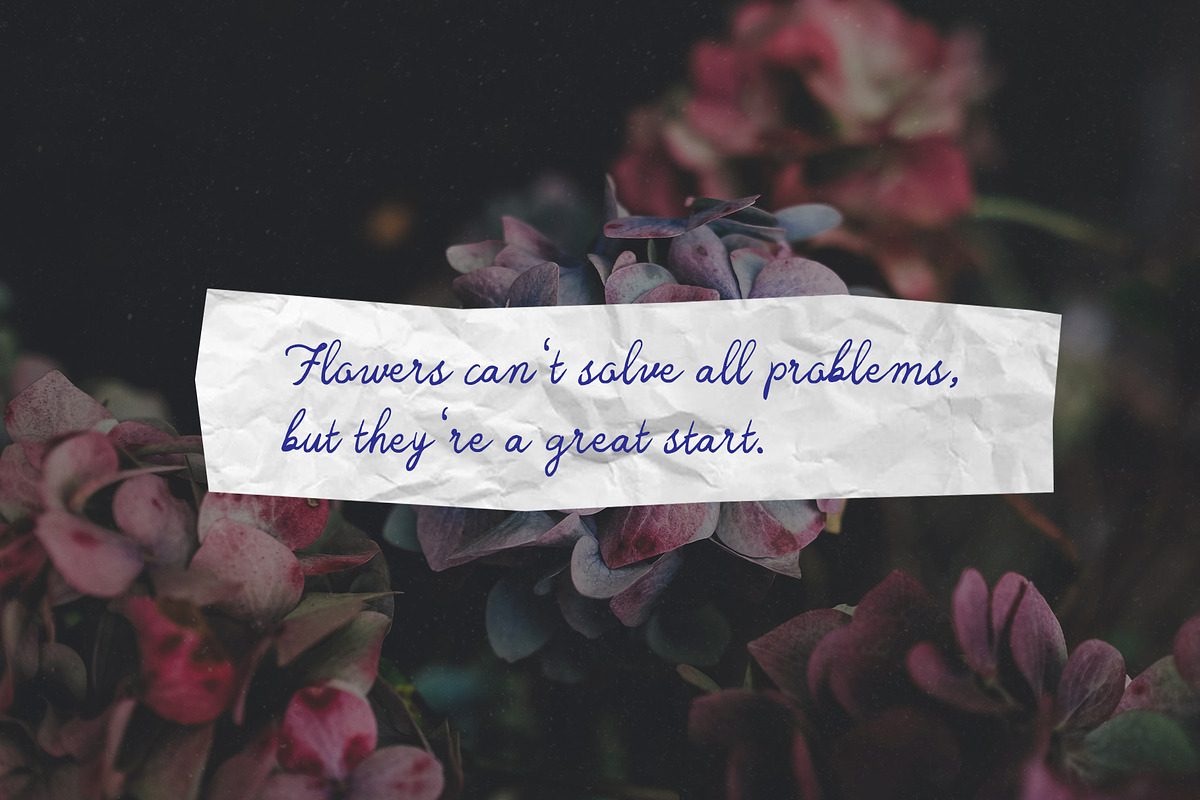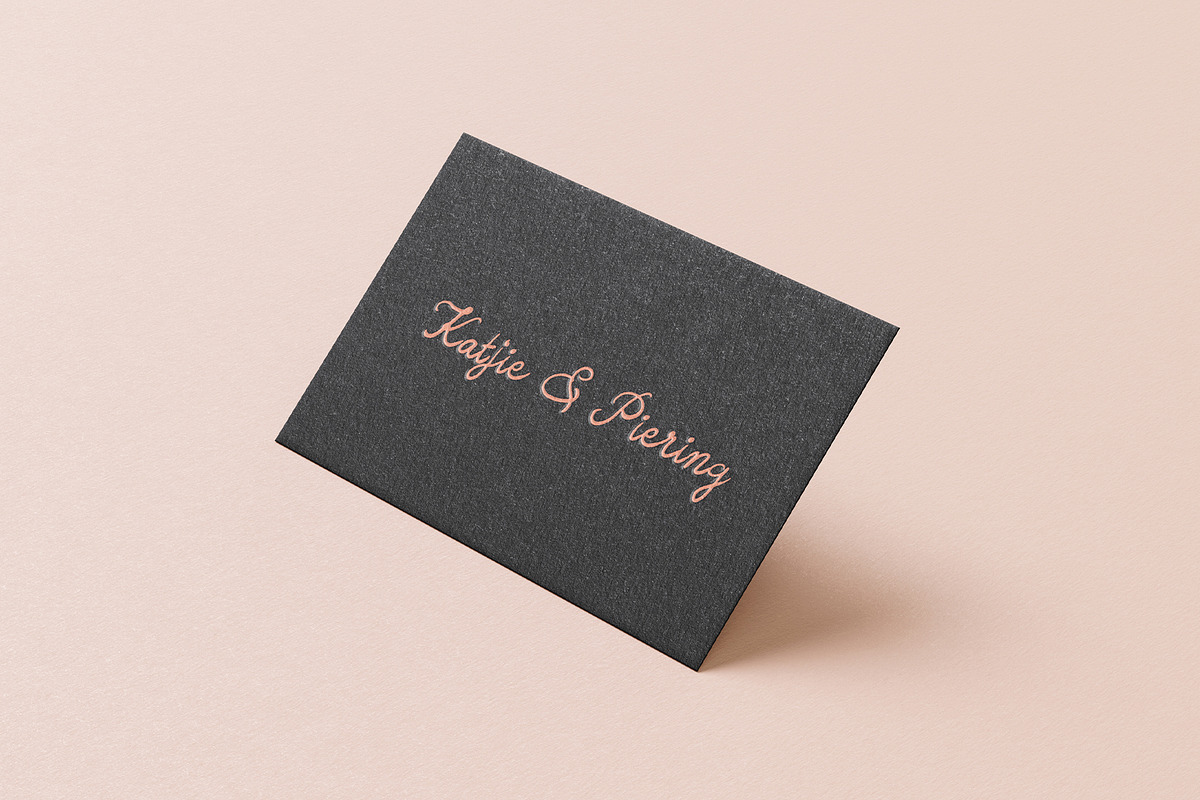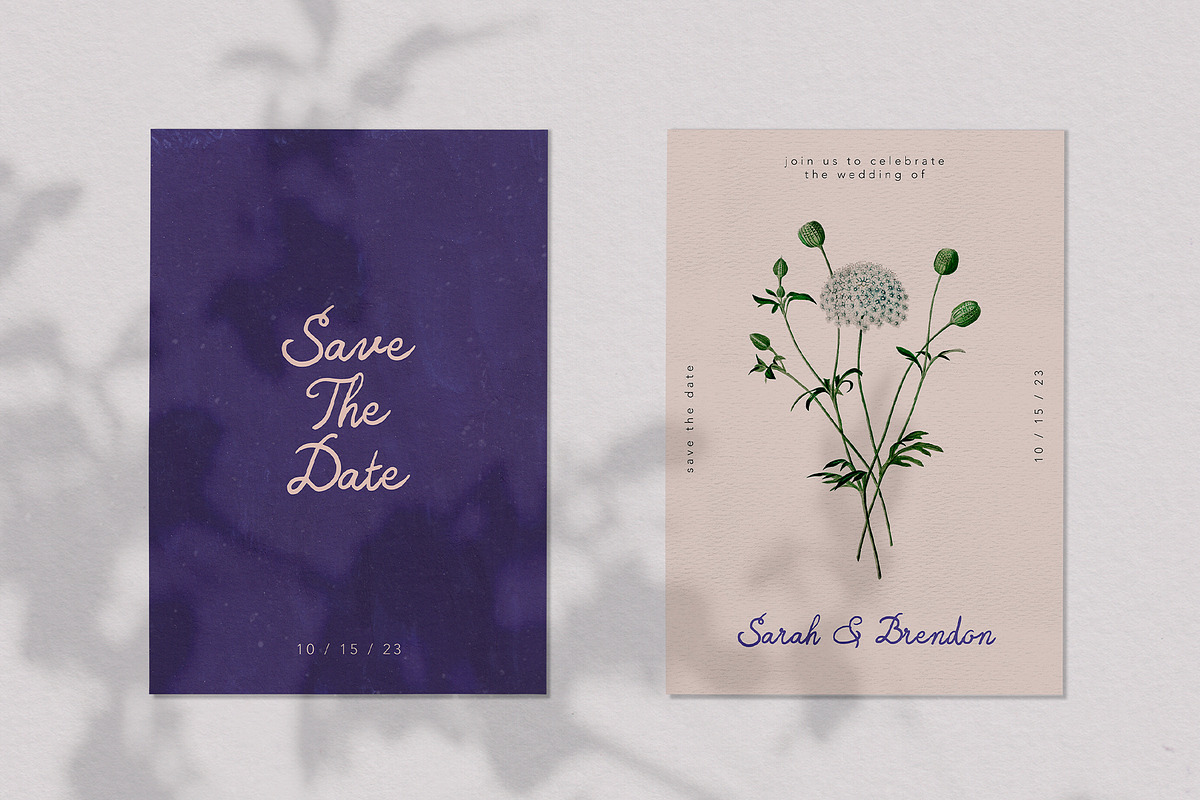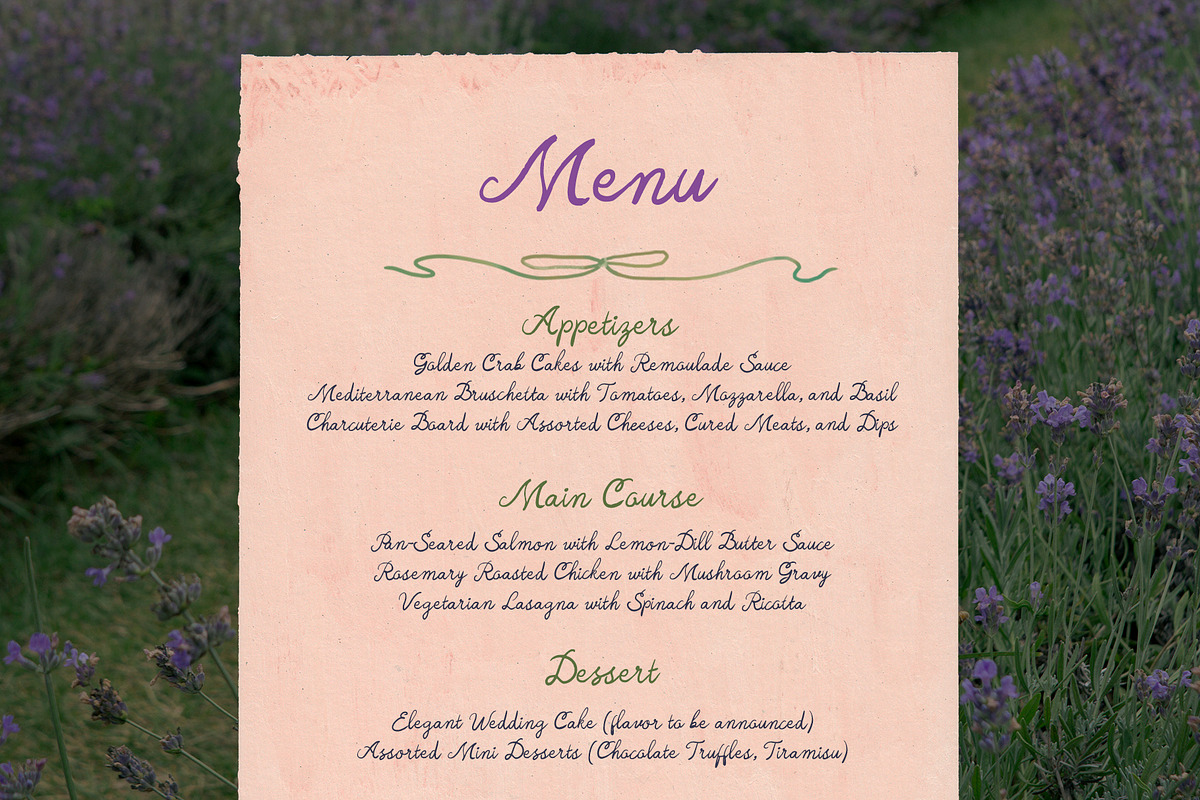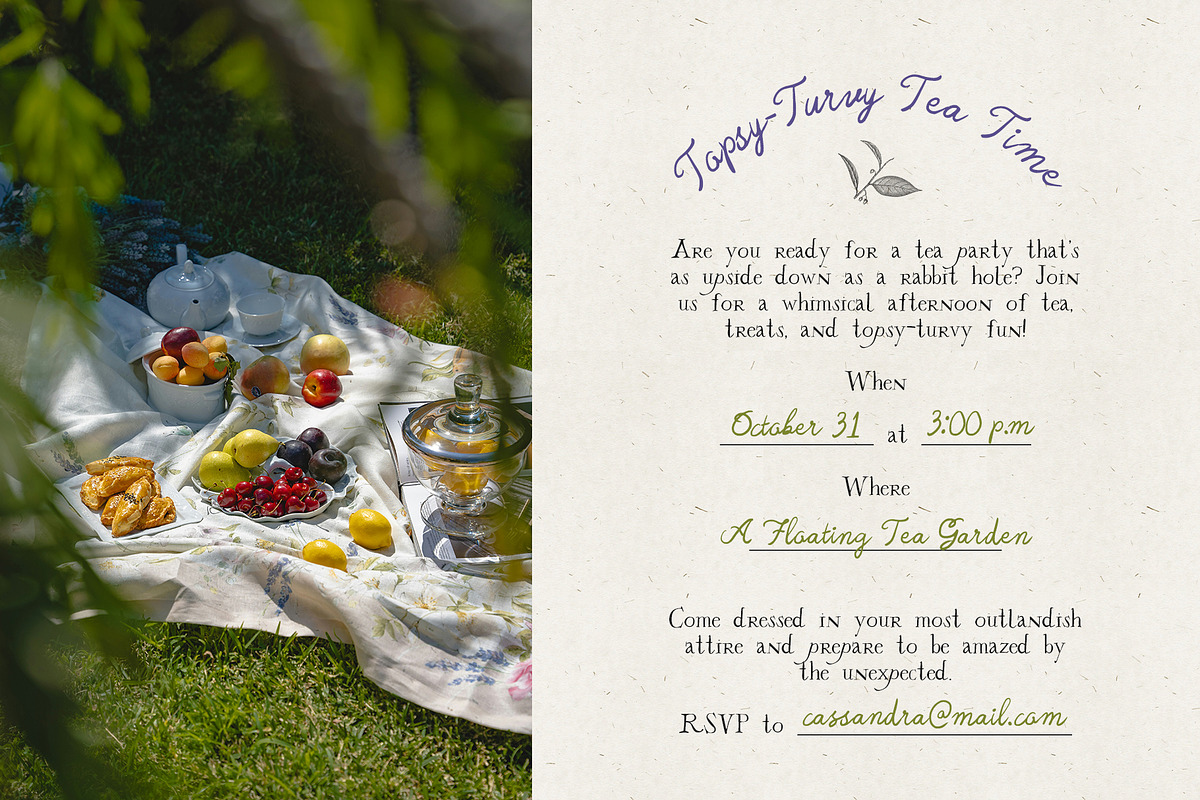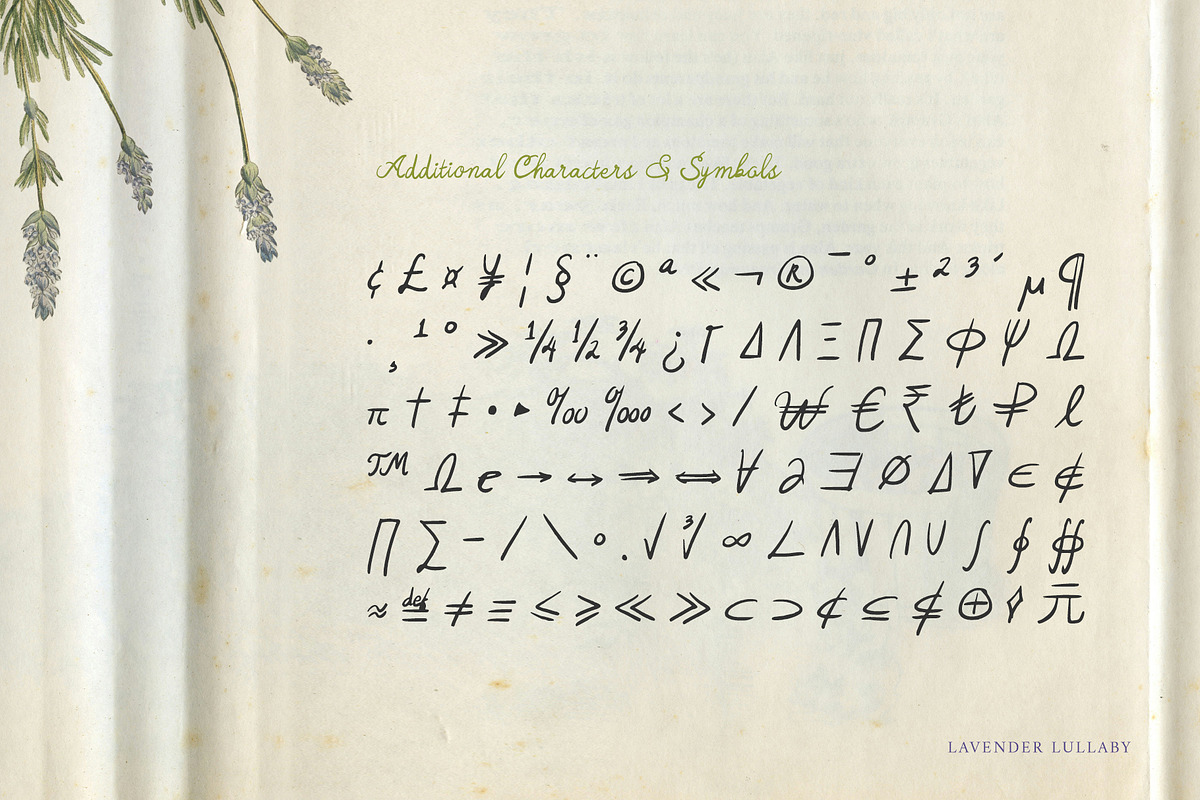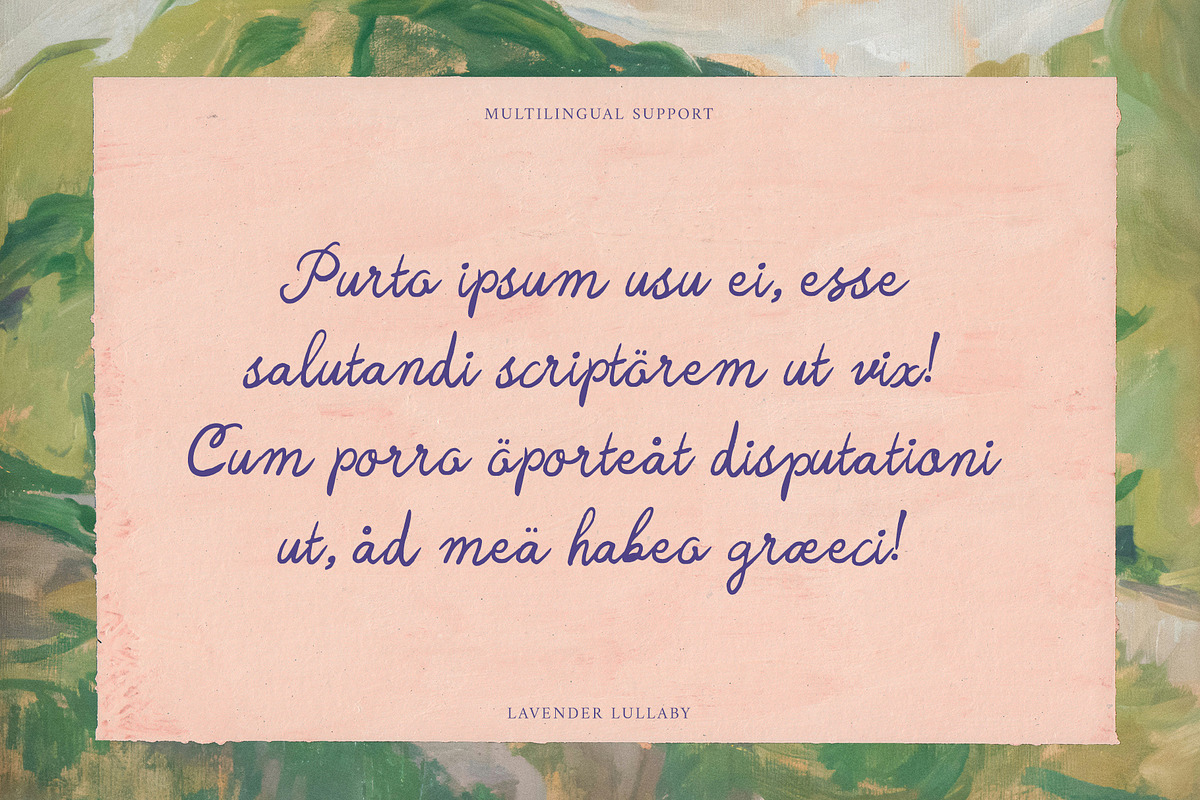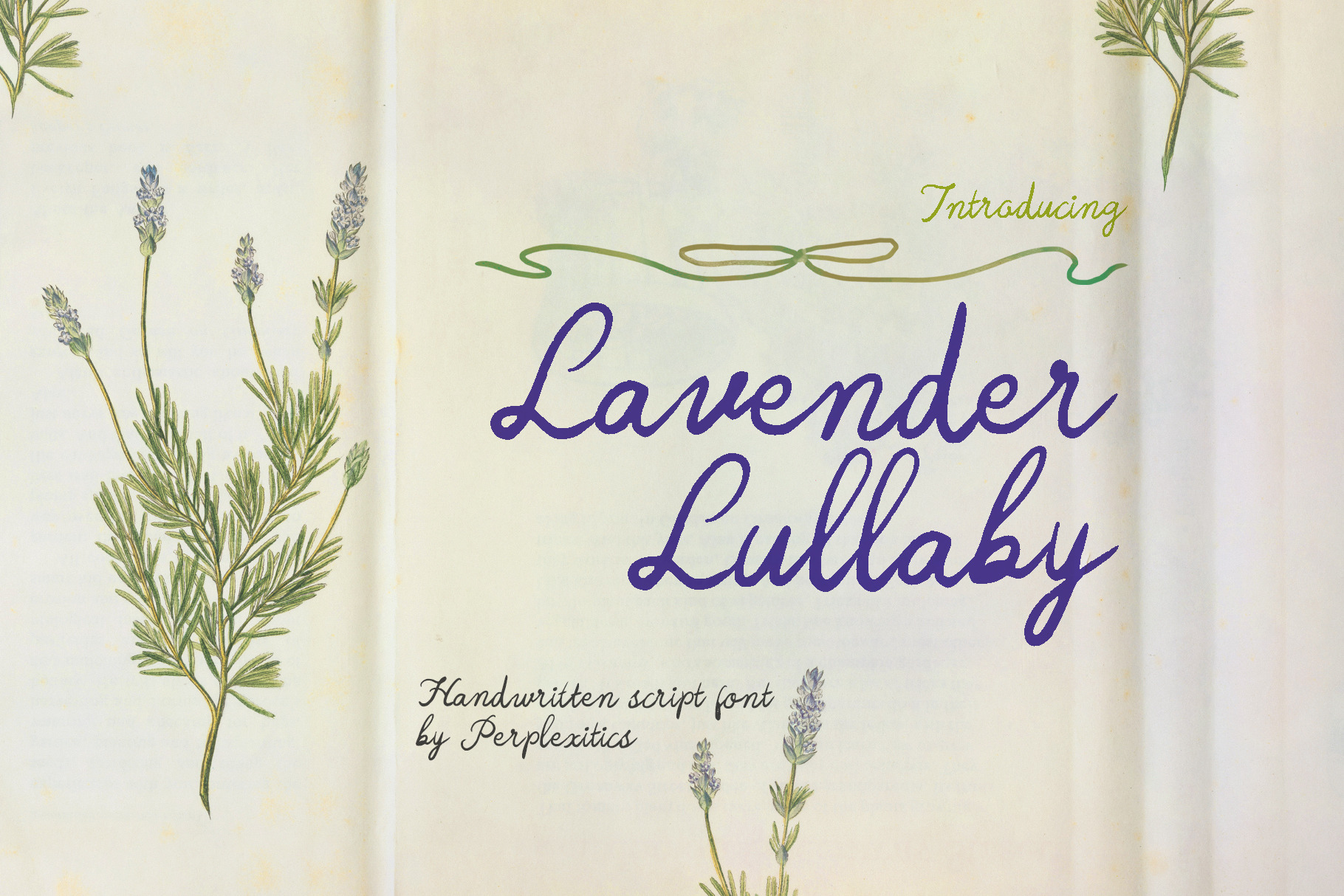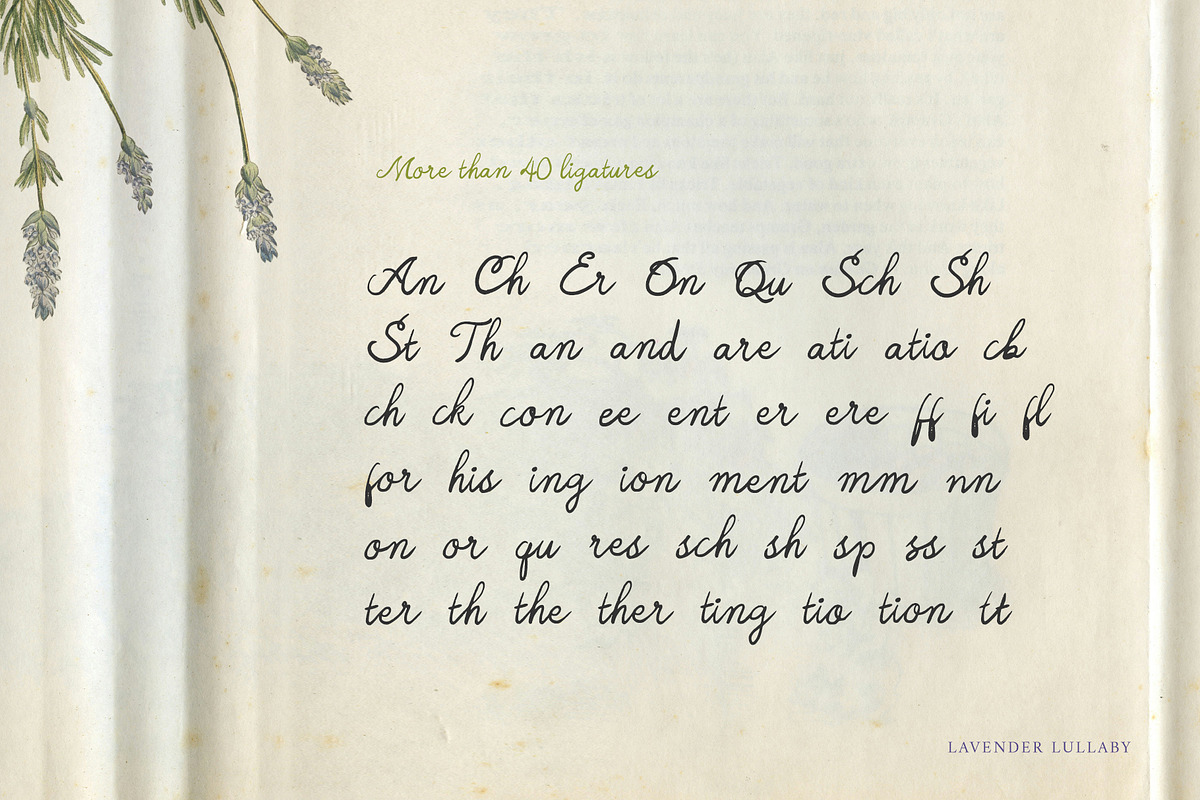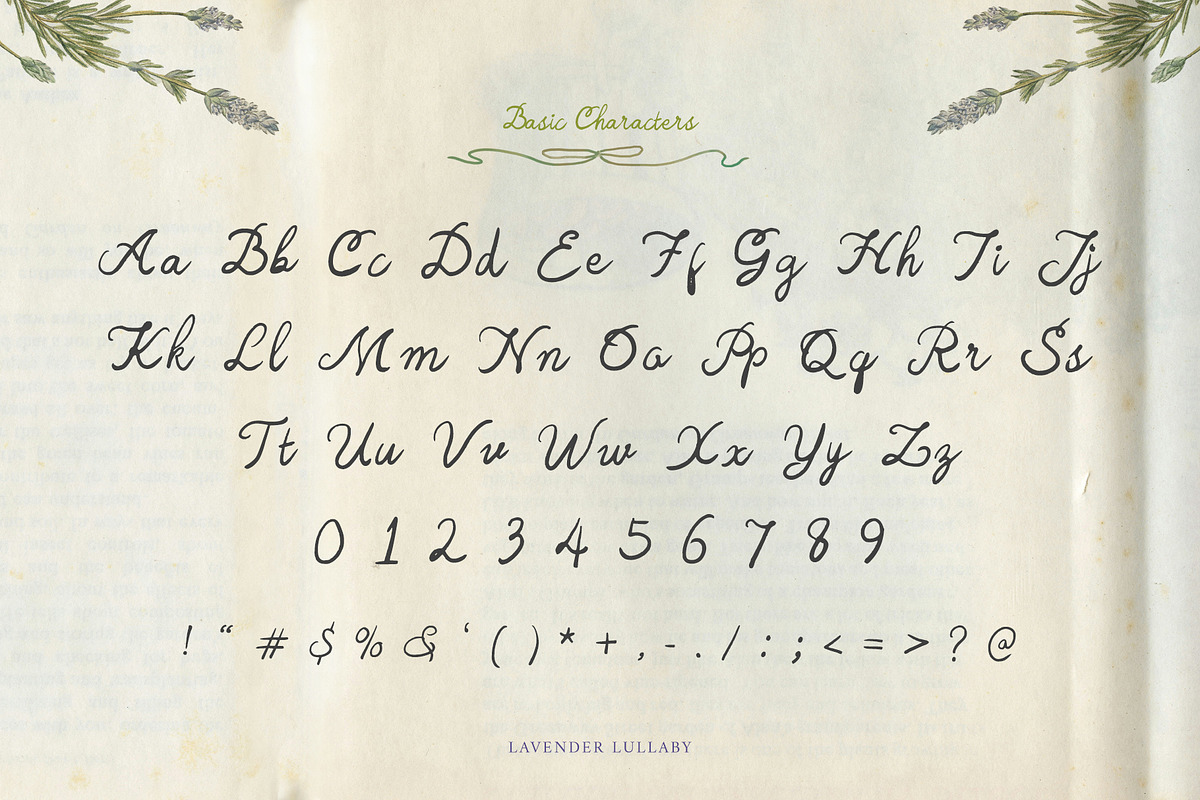
Handwritten Font Lavender Lullaby
Lavender Lullaby is an elegant cursive script font- perfect for wedding invitations and projects. Add a touch of romance and playfulness to your designs with this beautiful, flowing font. Download now and create stunning invitations and stationery.
Lavender Lullaby Font is packed with everything you need, including uppercase and lowercase letters, numbers, and punctuation. Multilingual support.